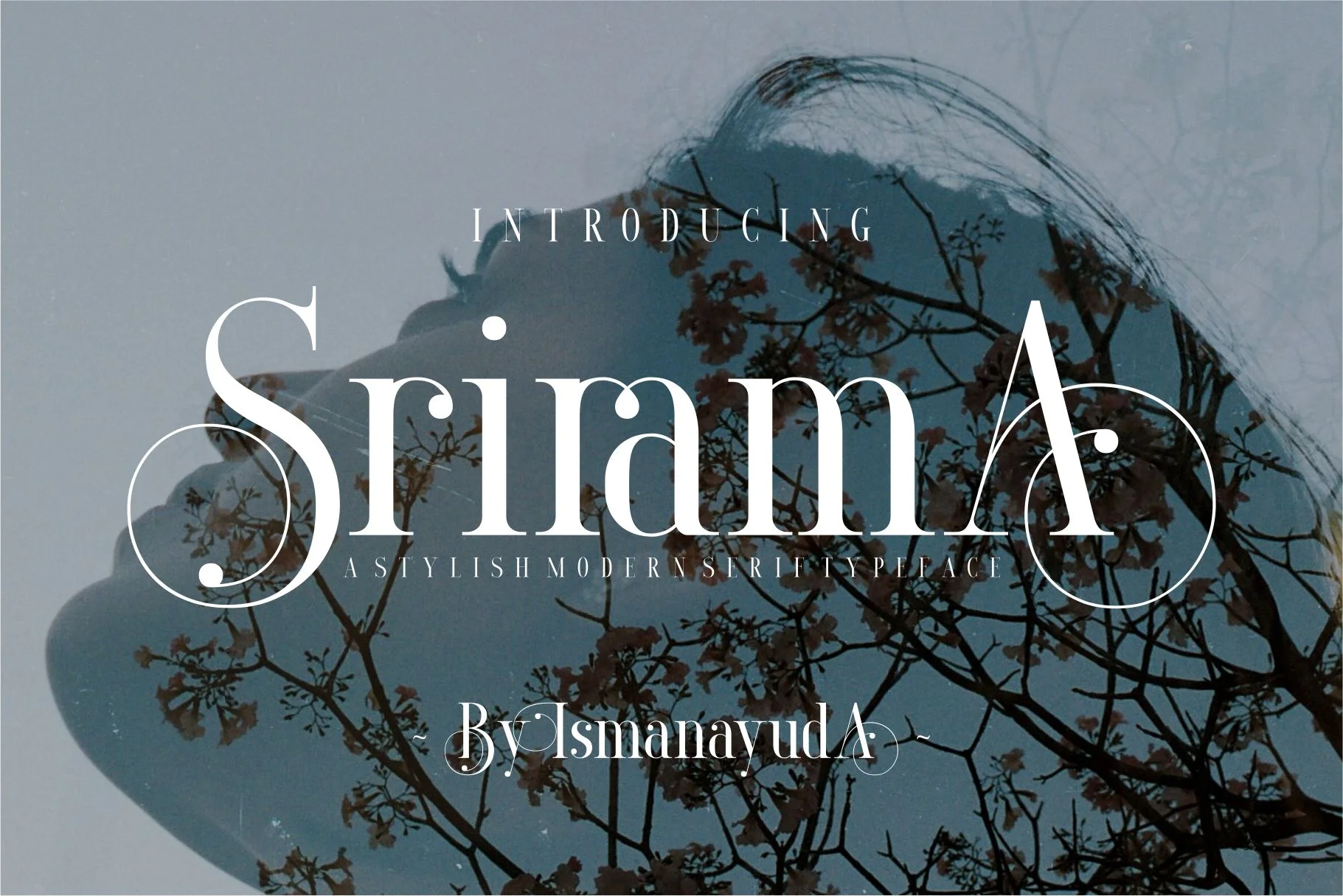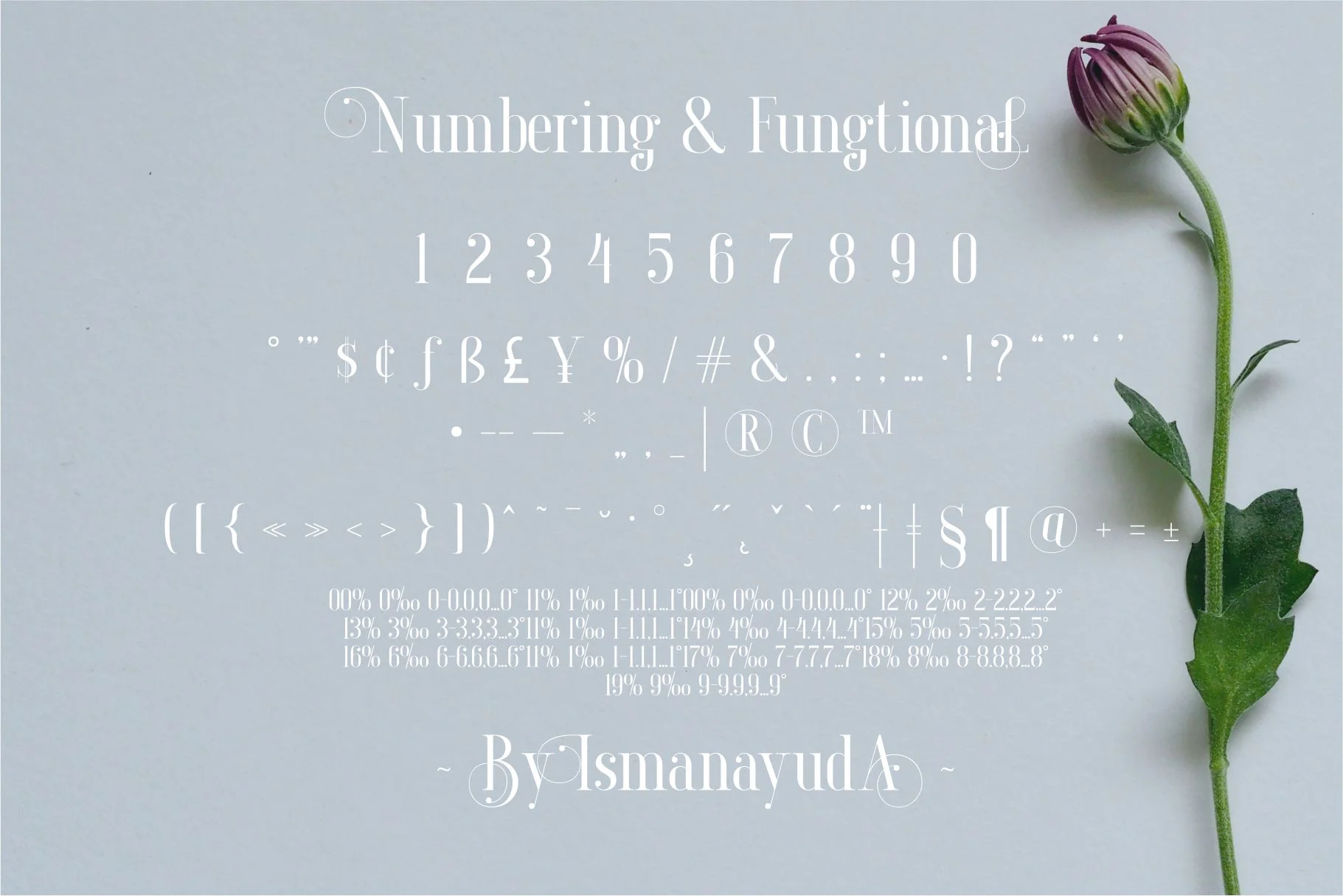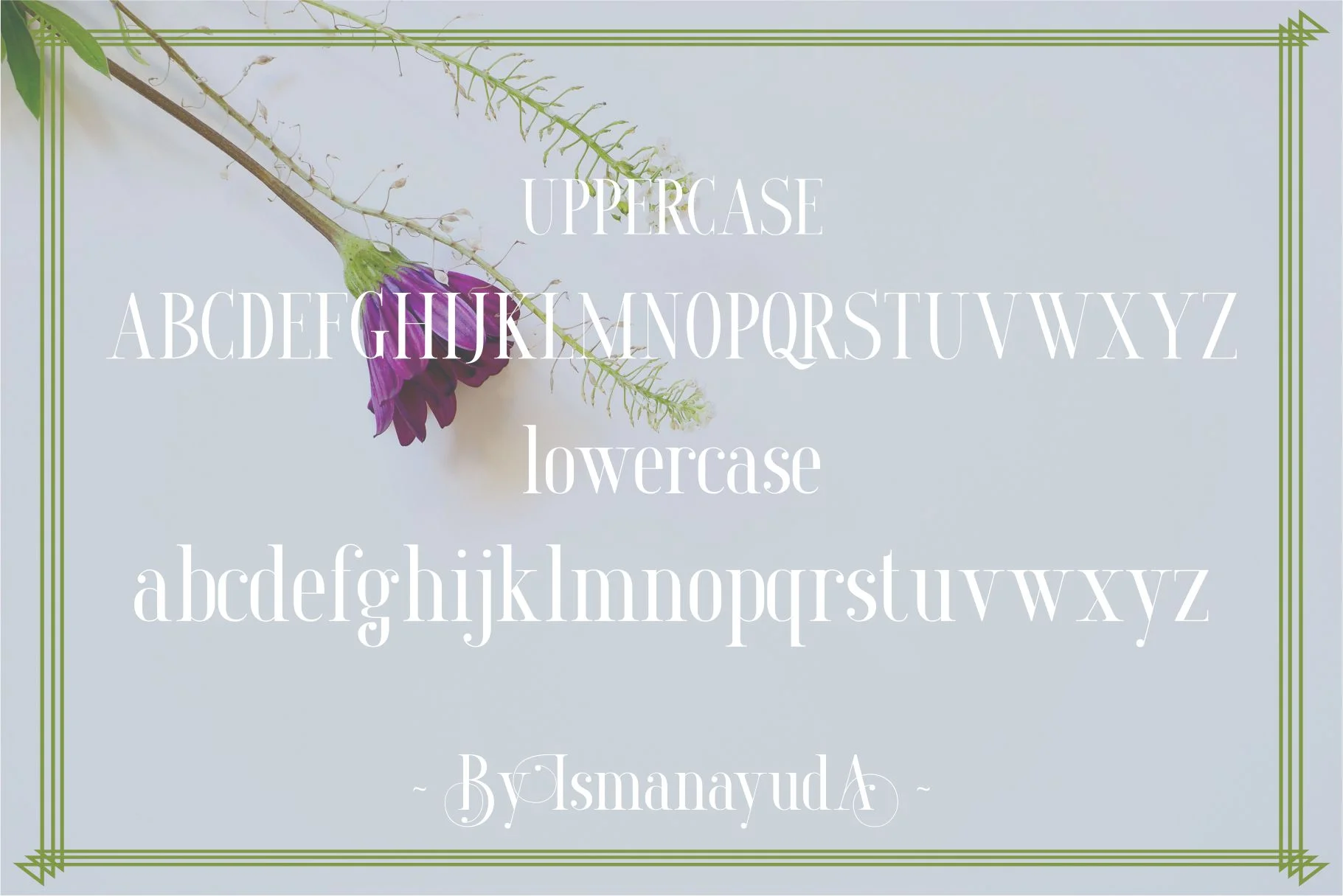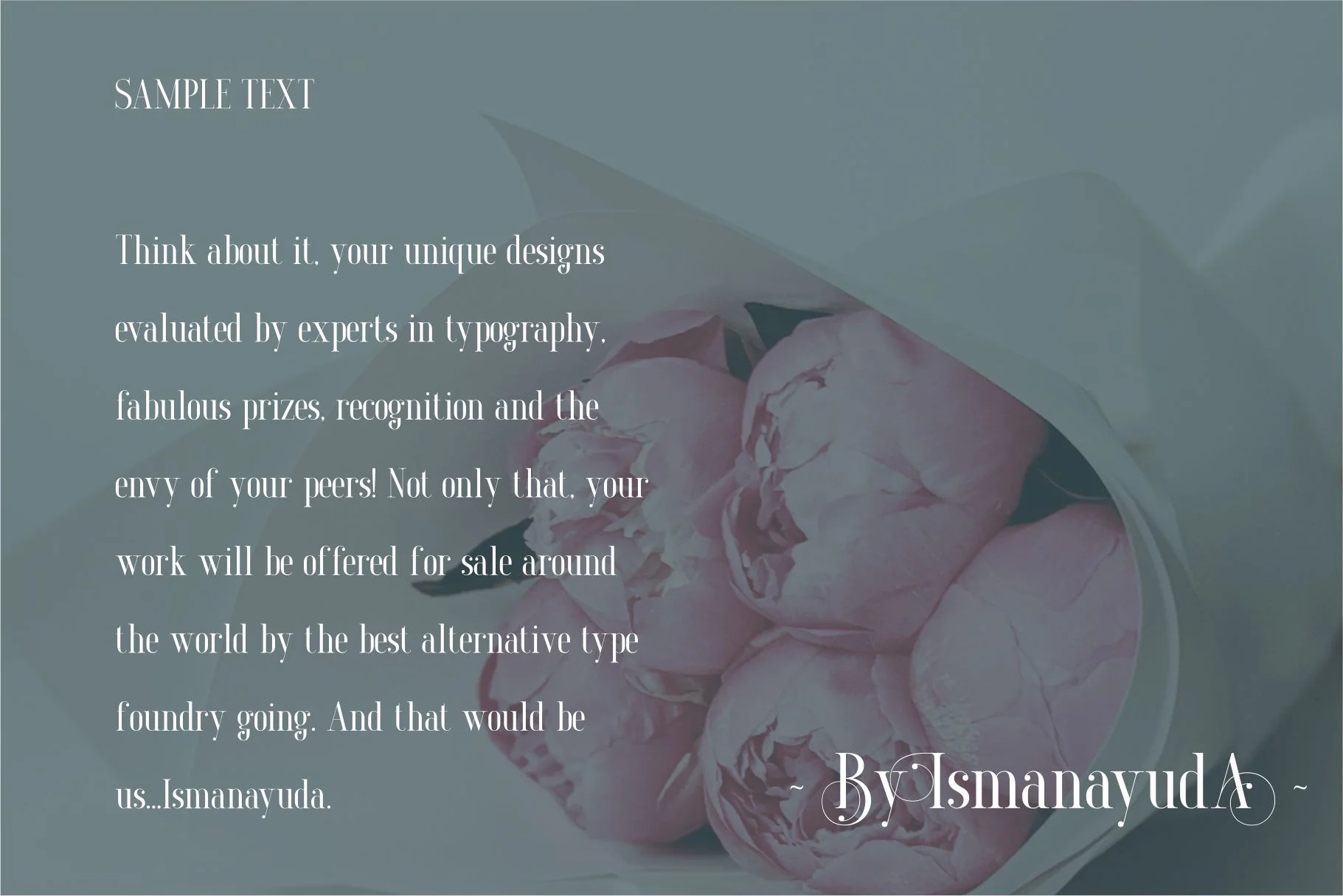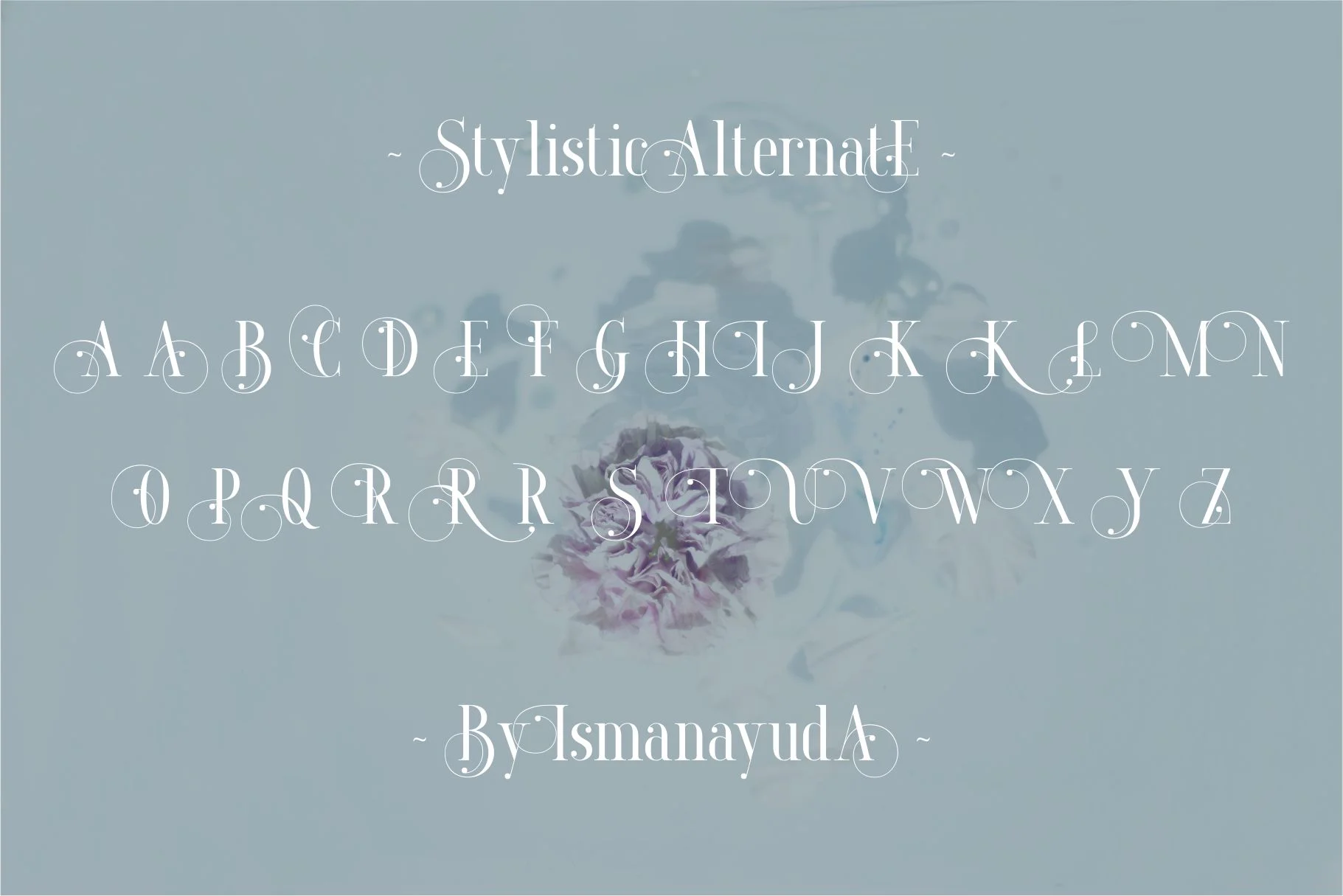
Srirama
Srirama is categorized as a stylish modern serif font that blends traditional elegance with contemporary design. It is characterized by high-contrast strokes, a sophisticated aesthetic, and intricate detailing. This high-impact display font is specifically designed for customized creative projects such as wedding invitations, luxury branding, logos, and editorial headlines where a touch of refinement is required.
The typeface often features unique glyphs and OpenType features that allow for a highly tailored and artistic look in professional design applications.